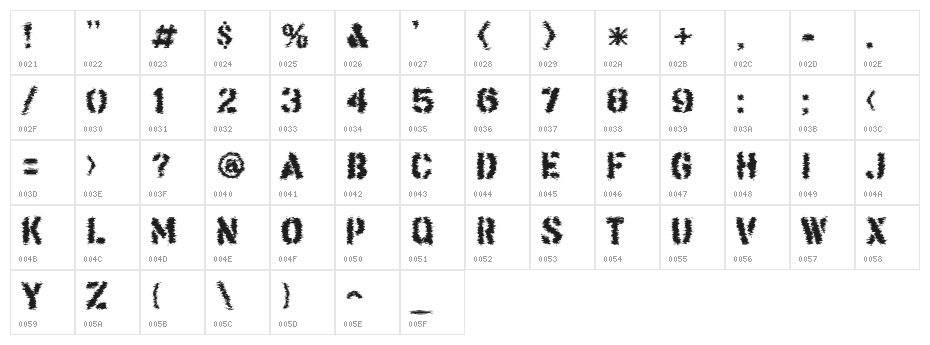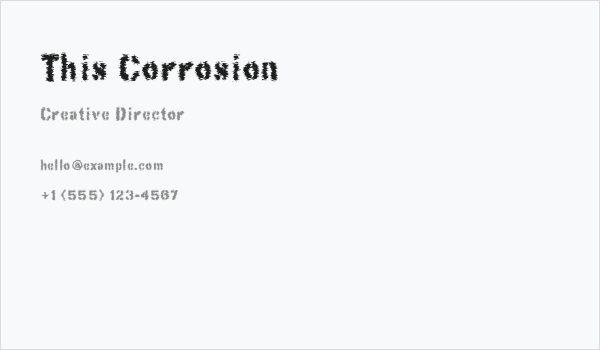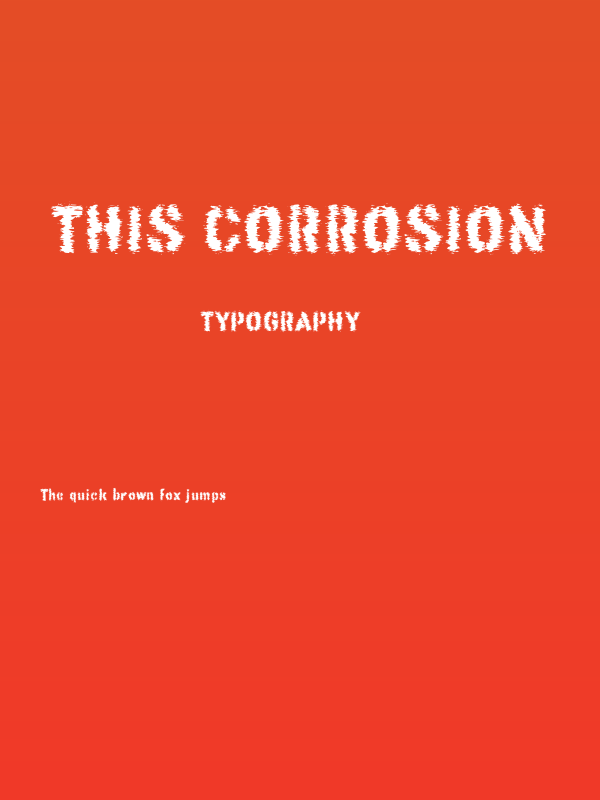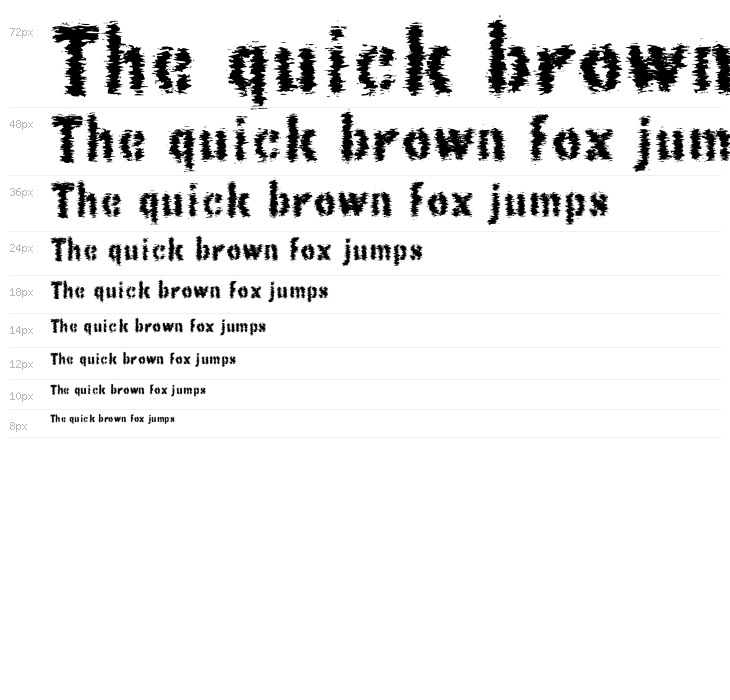
This Corrosion Font
This Corrosion Description
This font features a distressed, grunge style with a rough, textured appearance that mimics the effect of corrosion or erosion. The characters are bold and heavily stylized, with irregular edges and a dynamic, chaotic feel. This design gives the font a unique, edgy look, making it stand out in any design project. The uppercase and lowercase letters maintain a consistent style, while the numbers and special characters are equally distinctive, adding to the overall cohesive appearance. The font's rugged texture suggests a sense of decay or wear, perfect for projects that require a gritty, industrial aesthetic.
| Overall Style | Grunge, Industrial |
| Proposed Projects | Ideal for album covers, posters, urban-themed designs, and any project needing a gritty, industrial look. |